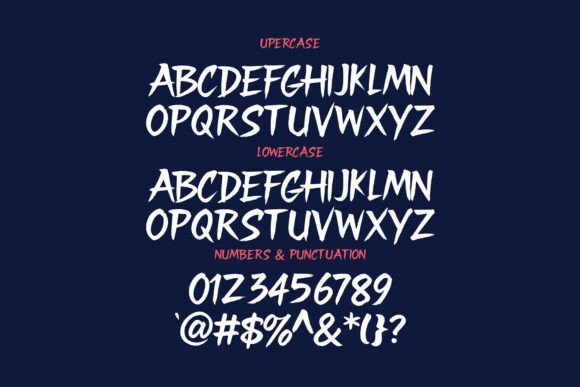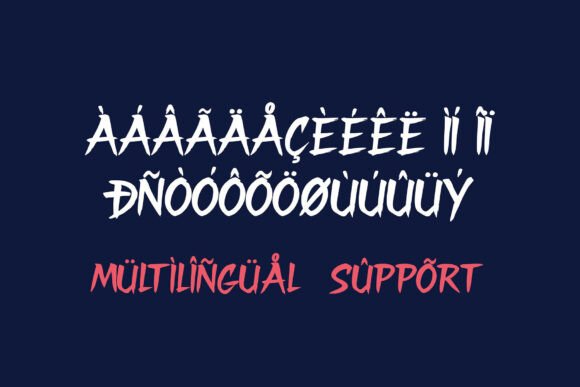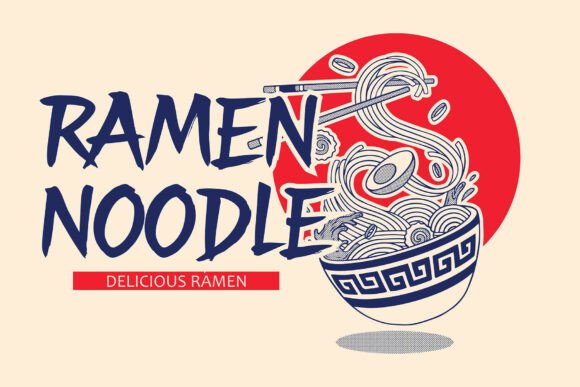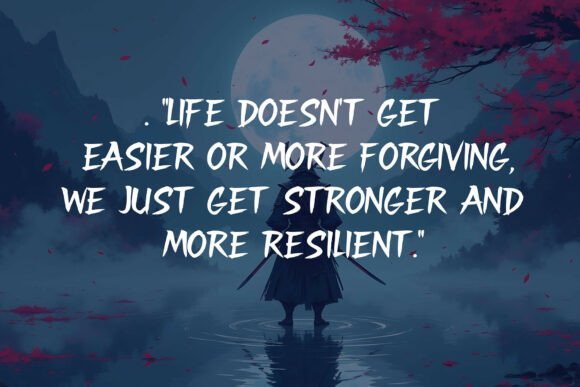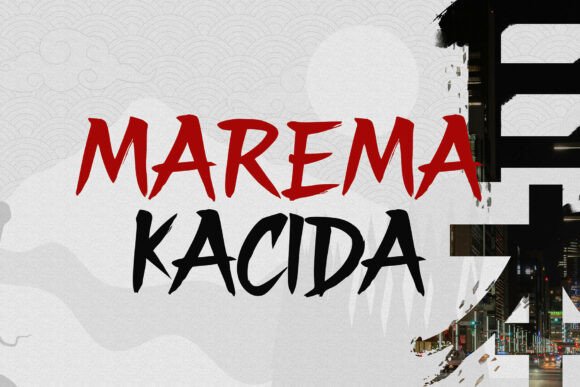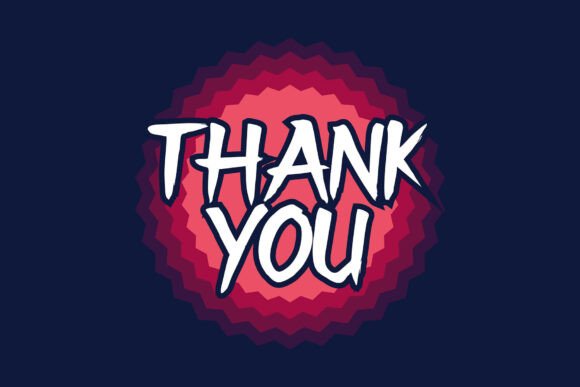
Introduction to Night Blaze Font
As designers, we’ve all been there – stuck on a creative project, searching for that one element that brings our vision to life. The perfect font can make all the difference, elevating our designs from good to great. And that’s where Night Blaze Font comes in – a game-changing display font that’s about to revolutionize the way we think about typography.
| 📌 Product Name | Night Blaze Font |
| 👤 Author | Cikareotype |
Imagine unleashing a bold, high-energy font that commands attention and sparks action. Night Blaze Font is more than just a design resource – it’s a powerful tool that helps you communicate your message with confidence and style. With its raw textures and dynamic momentum, this font is perfect for designers who want to add a touch of rebellion and energy to their work.
Whether you’re a seasoned pro or just starting out, Night Blaze Font is an essential addition to your design toolkit. And the best part? It’s easy to use, with seamless application across both print and digital mediums, and support for multiple languages. So why wait? Download Night Blaze Font today and discover a whole new world of creative possibilities.
Key Features of Night Blaze Font
- High-quality design resource ideal for creative projects requiring a bold, fiery aesthetic.
- Unique characteristics include a distinctive flame-like design element and a range of color options.
- Perfect for use in graphic design, digital art, and other creative projects where a dramatic, eye-catching font is required.
- Can be easily customized using font editing software to create a wide range of effects and styles.
Honest Review: Night Blaze Font
As a designer, I’ve had my fair share of using various fonts for my creative projects. The Night Blaze Font is one of the recent additions to my design resource library. I must say, it’s a great find!
What works well for me about the Night Blaze Font is its unique, modern design that’s perfect for creating a bold and edgy look in my designs. The font is available for a free download, which is a definite plus. The transparent background feature allows me to easily integrate it into my designs without any hassle.
- ✨ Unique and modern design that’s perfect for creating a bold and edgy look
However, I do find some limitations with the Night Blaze Font. The font family is limited, and there aren’t many variations available. Additionally, the font may not be suitable for all types of designs, particularly those that require a more subtle or elegant look.
- ⚠️ Limited font family and variations
- ⚠️ May not be suitable for all types of designs
Overall, I’m impressed with the Night Blaze Font, and I would definitely recommend it to designers who are looking for a bold and modern font for their creative projects. Just keep in mind its limitations, and you’ll be good to go!
Tips for Getting the Most Out of Night Blaze Font
To get the most out of Night Blaze Font, experiment with different font sizes, colors, and styles. Use it in combination with other design elements, such as images, shapes, or graphics, to create visually appealing designs. Don’t forget to download the Night Blaze Font in high quality for the best results.
Some common use cases for Night Blaze Font include:
– Social media graphics and posts
– Marketing materials and brochures
– Presentations and reports
– Logos and branding materials
– Creative projects and designs